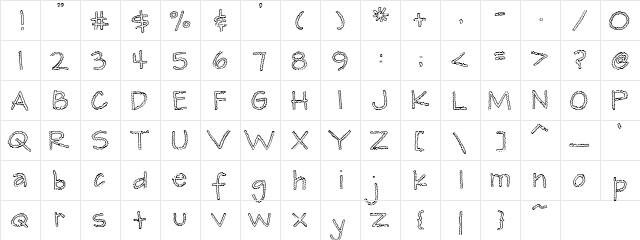
PC Earthquake Outline Regular
Design Context for PC Earthquake Outline Typeface
PC Earthquake Outline is built around its visual character rather than neutral utility — its distinctive forms are designed to make an impression at display sizes.
Font Pairing: Pair with a clean neutral sans-serif for body copy to let PC Earthquake Outline's character lead without overwhelming the composition.
Pro Tip: Use PC Earthquake Outline exclusively at display sizes — it was designed to be seen, not read at length. Let a neutral companion handle body copy.